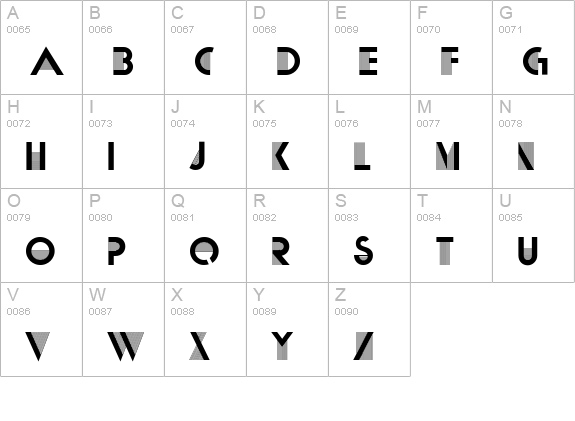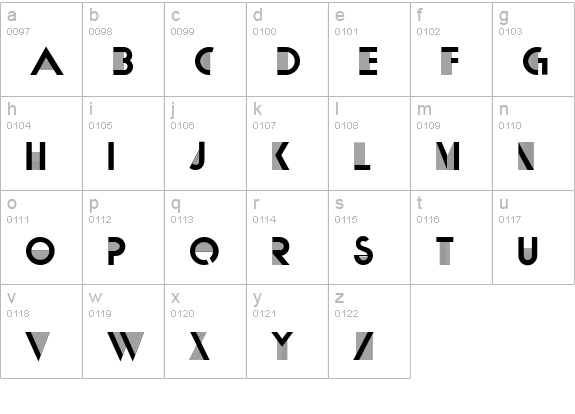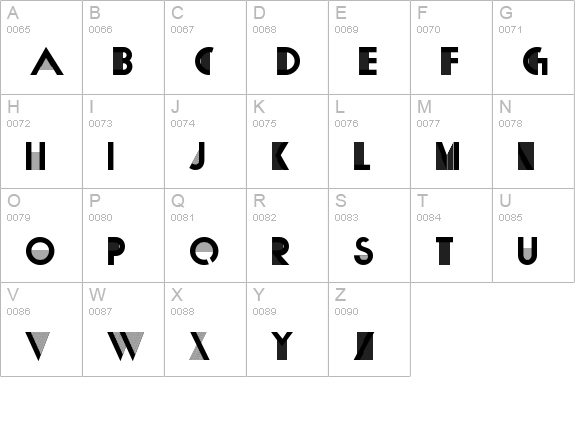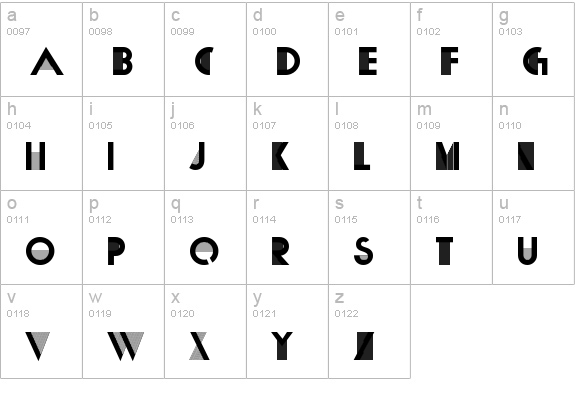
CgMatra Font Details
CgMatra font is a modern and elegant typeface that exudes sophistication and style. With its sleek lines and clean design, this font is perfect for a wide range of projects, from branding to editorial design. The versatility of CgMatra font allows it to be used in various contexts, making it a valuable addition to any designer's toolkit. What sets CgMatra font apart is its unique blend of traditional and contemporary elements, creating a timeless aesthetic that is both classic and fresh. Whether you're designing a logo, creating a poster, or crafting a website, this font will elevate your work and give it a professional edge. Best of all, CgMatra font is available for free download at FontsMarket.com. This means that you can access this high-quality typeface without breaking the bank, making it a great option for designers on a budget. Don't miss out on the opportunity to enhance your projects with the exquisite CgMatra font – download it today and take your designs to the next level.